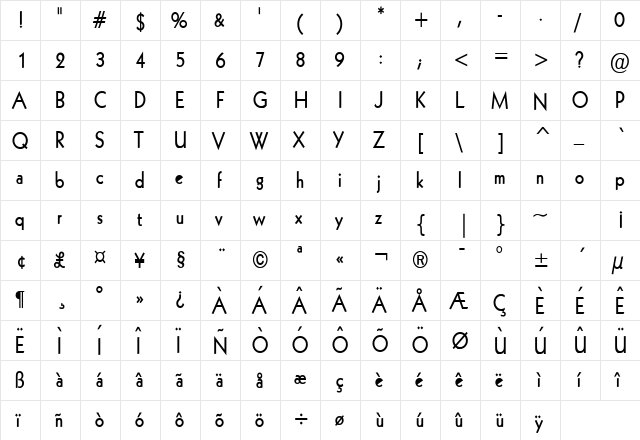
Geo 112 Condensed Bold
Design Context for Geo 112 Condensed Typeface
Geo 112 Condensed is a composed and adaptable typeface that performs quietly and consistently across a wide range of design contexts. The heavy weight commands attention and anchors typographic hierarchies. The condensed width makes it efficient for tight spaces without sacrificing legibility.
Pro Tip: Pair Geo 112 Condensed with a font of contrasting weight or personality to build a more expressive typographic hierarchy.